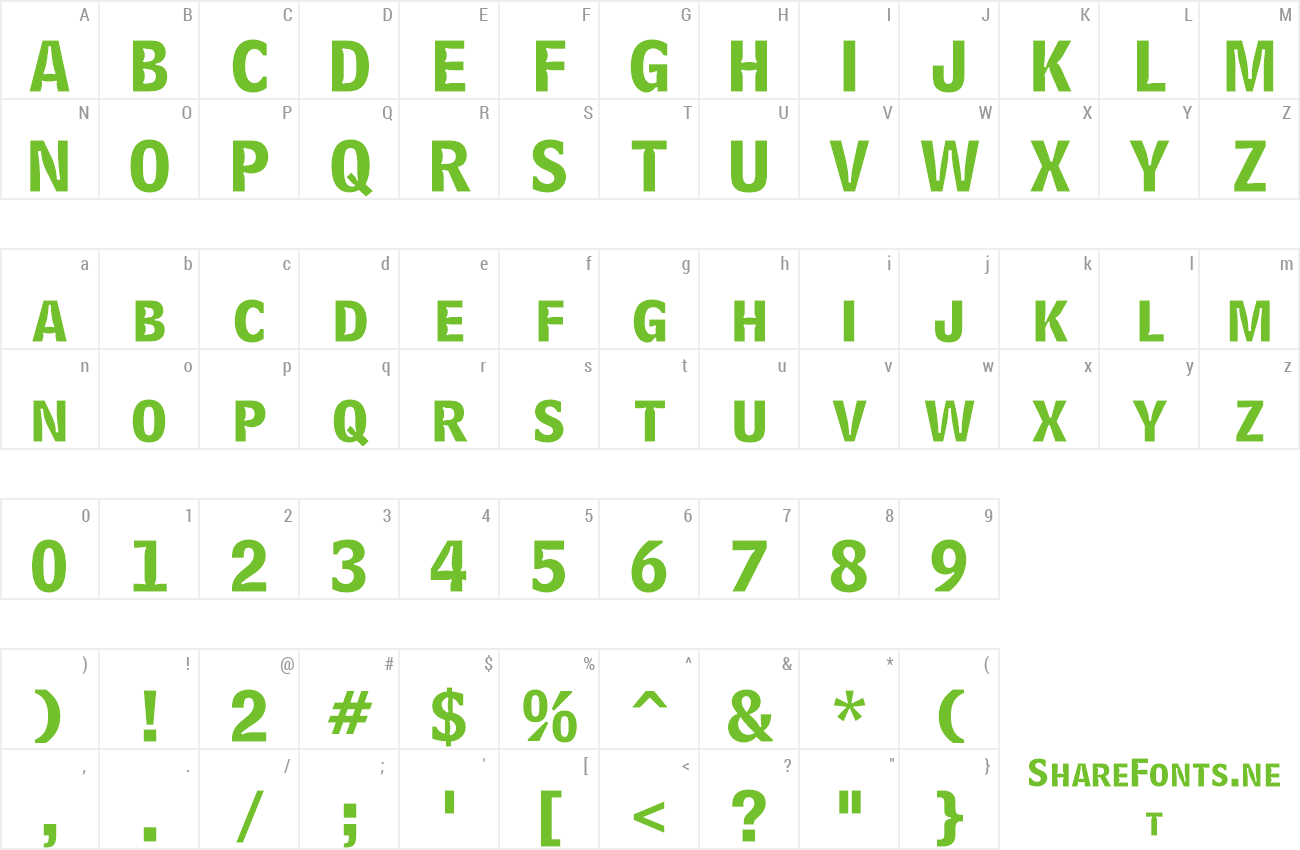
Bell Centennial Font
Bell Centennial Font - Bell centennial contains 4 styles. Web bell centennial font was created by matthew carter in 1976 for the american telephone company bell. Web bell centennial font family was designed by published by tilde. Bell centennial font was created by matthew carter in 1976 for the american. Web bell centennial bold listing.
Bell centennial font was created by matthew carter in 1976 for the american. Web bell centennial font family was designed by published by tilde. Web bell centennial bold listing. Bell centennial contains 4 styles. Web bell centennial font was created by matthew carter in 1976 for the american telephone company bell.
Web bell centennial bold listing. Web bell centennial font family was designed by published by tilde. Bell centennial font was created by matthew carter in 1976 for the american. Bell centennial contains 4 styles. Web bell centennial font was created by matthew carter in 1976 for the american telephone company bell.
Web bell centennial bold listing. Web bell centennial font family was designed by published by tilde. Web bell centennial font was created by matthew carter in 1976 for the american telephone company bell. Bell centennial font was created by matthew carter in 1976 for the american. Bell centennial contains 4 styles.
Web bell centennial font was created by matthew carter in 1976 for the american telephone company bell. Bell centennial font was created by matthew carter in 1976 for the american. Web bell centennial font family was designed by published by tilde. Bell centennial contains 4 styles. Web bell centennial bold listing.
Web bell centennial font family was designed by published by tilde. Bell centennial contains 4 styles. Web bell centennial bold listing. Bell centennial font was created by matthew carter in 1976 for the american. Web bell centennial font was created by matthew carter in 1976 for the american telephone company bell.
Web bell centennial bold listing. Bell centennial font was created by matthew carter in 1976 for the american. Bell centennial contains 4 styles. Web bell centennial font was created by matthew carter in 1976 for the american telephone company bell. Web bell centennial font family was designed by published by tilde.
Web bell centennial bold listing. Web bell centennial font was created by matthew carter in 1976 for the american telephone company bell. Bell centennial font was created by matthew carter in 1976 for the american. Bell centennial contains 4 styles. Web bell centennial font family was designed by published by tilde.
Bell centennial font was created by matthew carter in 1976 for the american. Web bell centennial font was created by matthew carter in 1976 for the american telephone company bell. Web bell centennial bold listing. Bell centennial contains 4 styles. Web bell centennial font family was designed by published by tilde.
Web bell centennial font was created by matthew carter in 1976 for the american telephone company bell. Bell centennial contains 4 styles. Web bell centennial bold listing. Bell centennial font was created by matthew carter in 1976 for the american. Web bell centennial font family was designed by published by tilde.
Bell centennial contains 4 styles. Web bell centennial font was created by matthew carter in 1976 for the american telephone company bell. Bell centennial font was created by matthew carter in 1976 for the american. Web bell centennial font family was designed by published by tilde. Web bell centennial bold listing.
Web bell centennial font was created by matthew carter in 1976 for the american telephone company bell. Web bell centennial font family was designed by published by tilde. Bell centennial font was created by matthew carter in 1976 for the american. Bell centennial contains 4 styles. Web bell centennial bold listing.
Web Bell Centennial Bold Listing.
Bell centennial font was created by matthew carter in 1976 for the american. Web bell centennial font was created by matthew carter in 1976 for the american telephone company bell. Bell centennial contains 4 styles. Web bell centennial font family was designed by published by tilde.